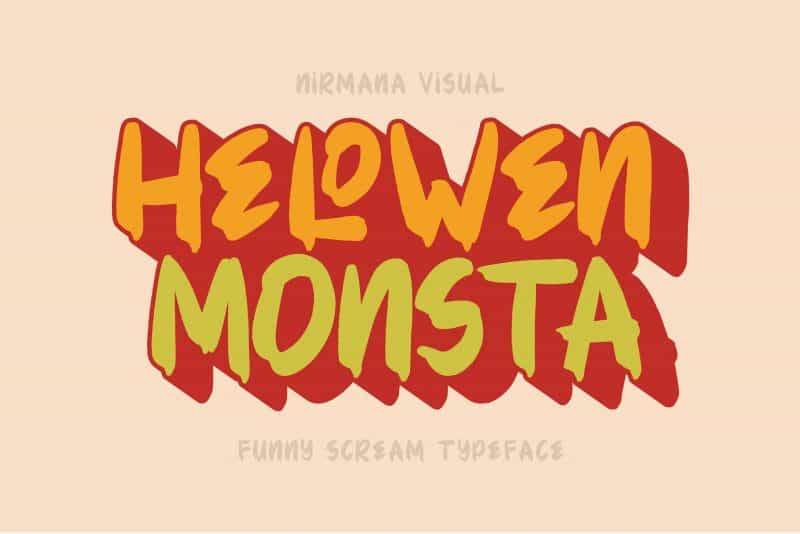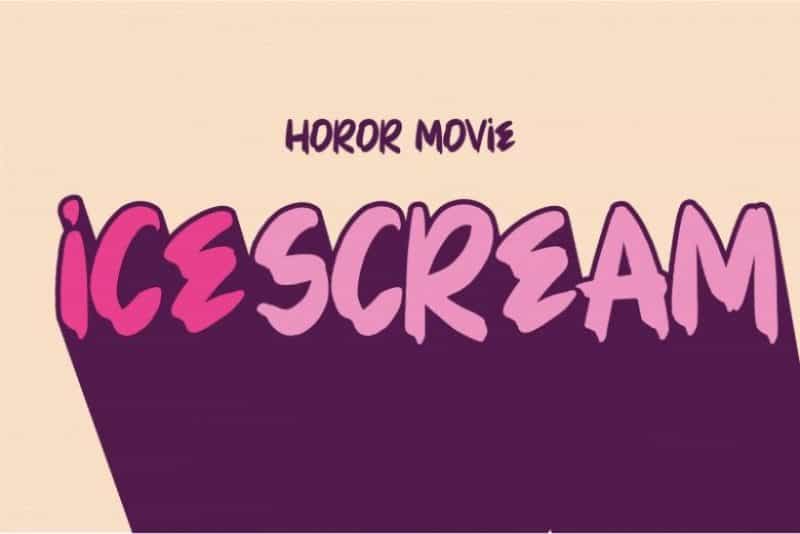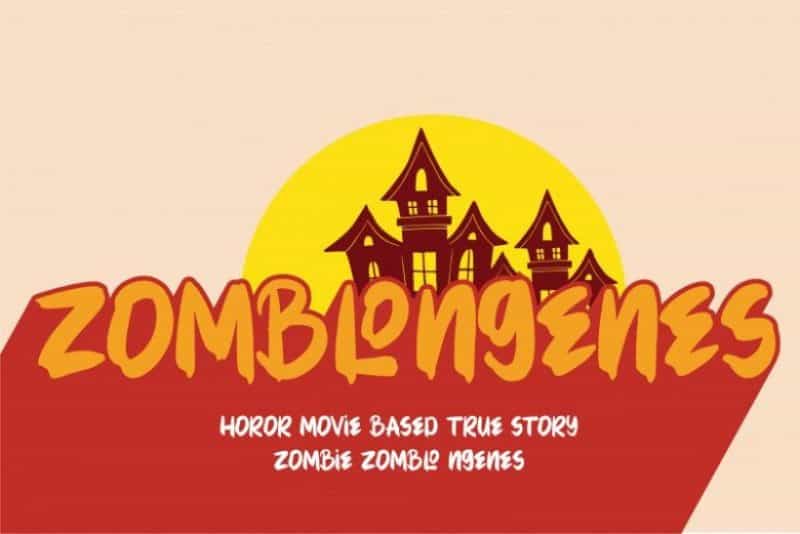
Discover Hellowen Monsta Font, part of the Brush Display Horror collection—a versatile and unique font perfect for adding a personal touch to your projects. Download it for free and enjoy crafting designs with style, from invitations to social media posts. This font is available exclusively for personal use, giving you the freedom to create without limits. Unlock your creativity with Hellowen Monsta Font today!
HelloWen Monsta Font with a ‘Kids style’, a handmade brush font that is perfect for crafting genuine typographical designs, such as product designs, logo and brand design, music album art, social media promotion, and many others.